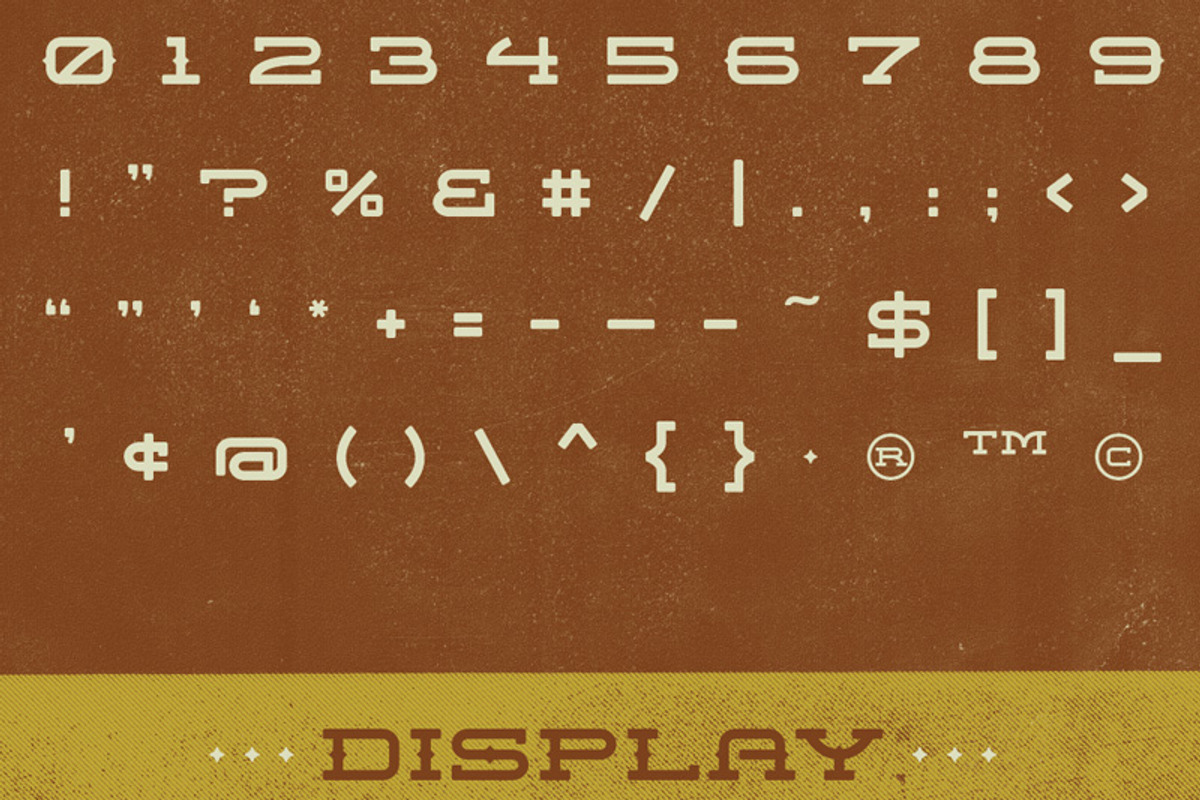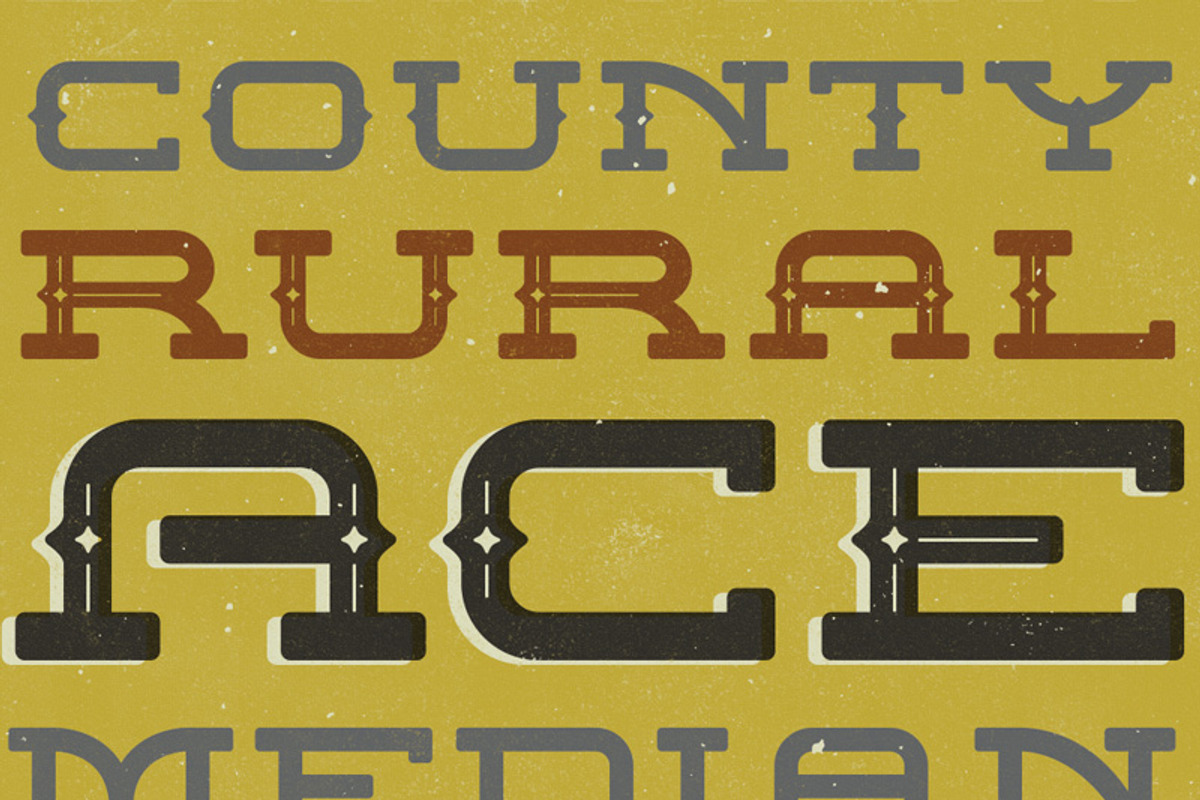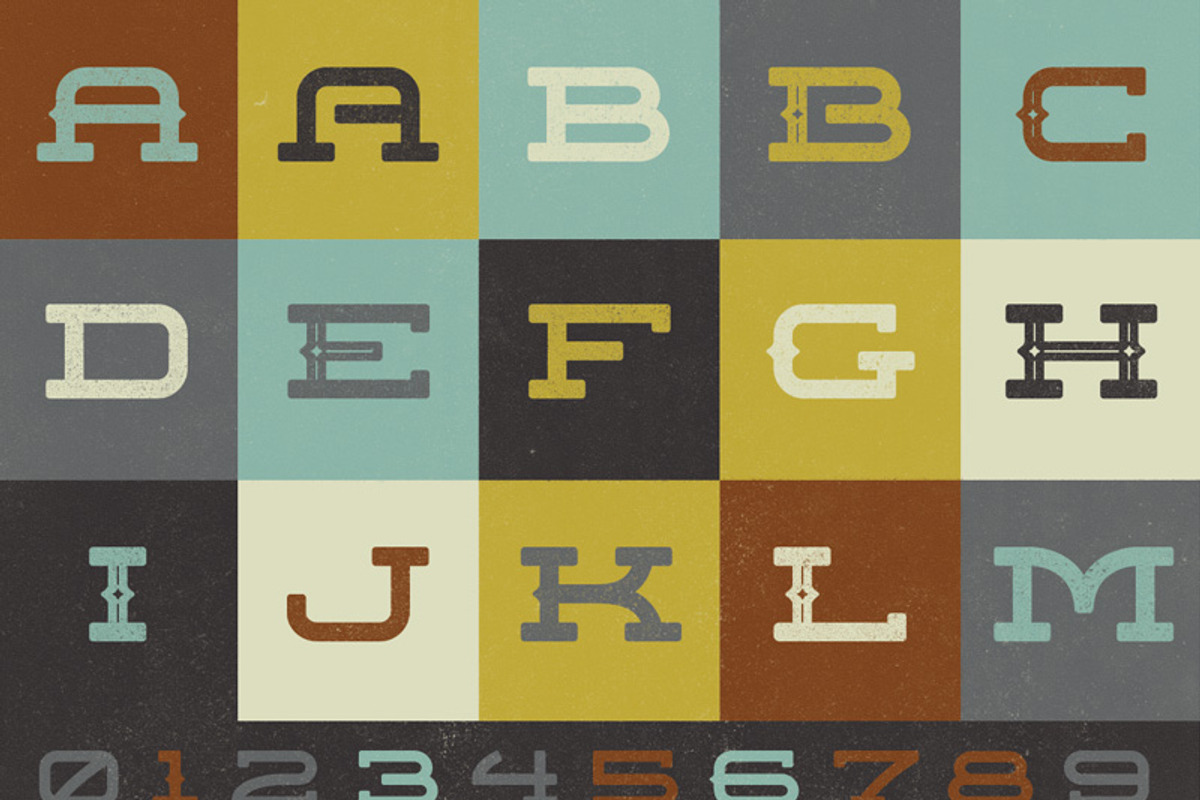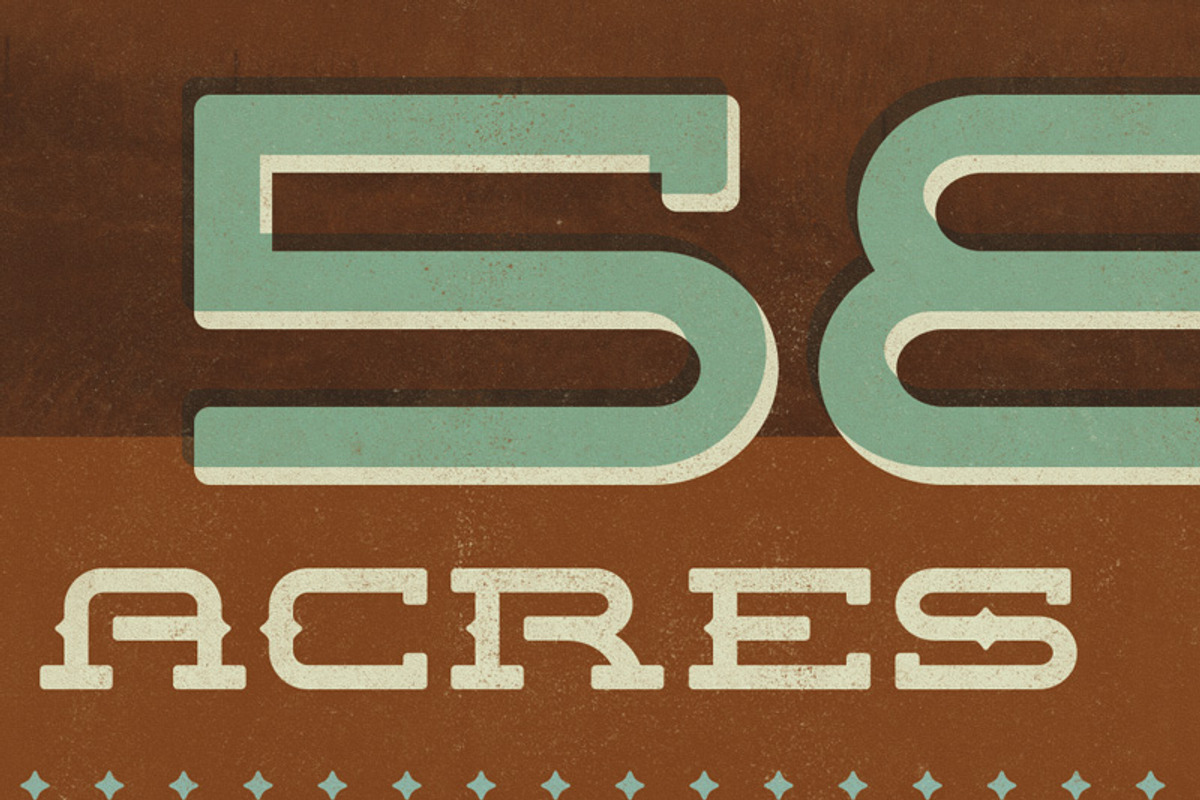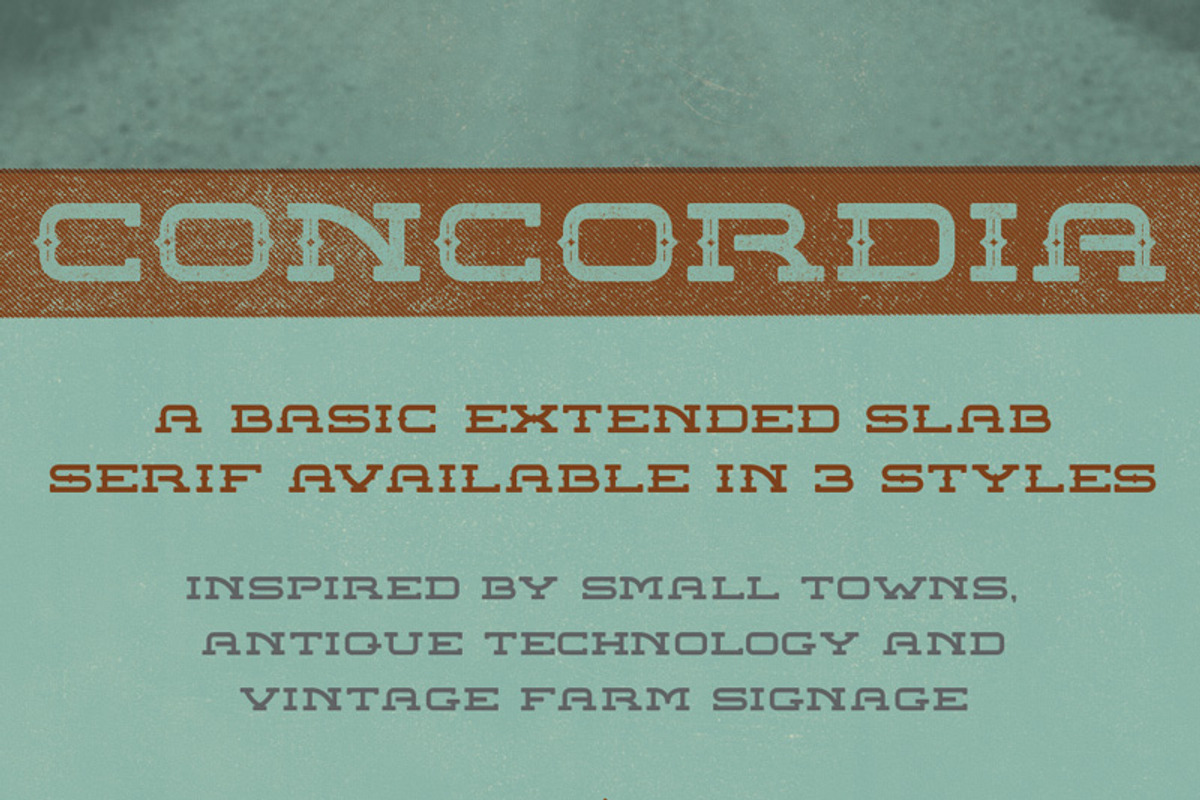
CONCORDIA TYPEFACE
CONCORDIA TYPEFACE by adamelwell is a font selected for branding, posters, packaging, typography.
- Concordia Regular
- Concordia Decorative
- Concordia Display
CONCORDIA TYPEFACE by adamelwell fits naturally into Branding, posters, packaging, typography.